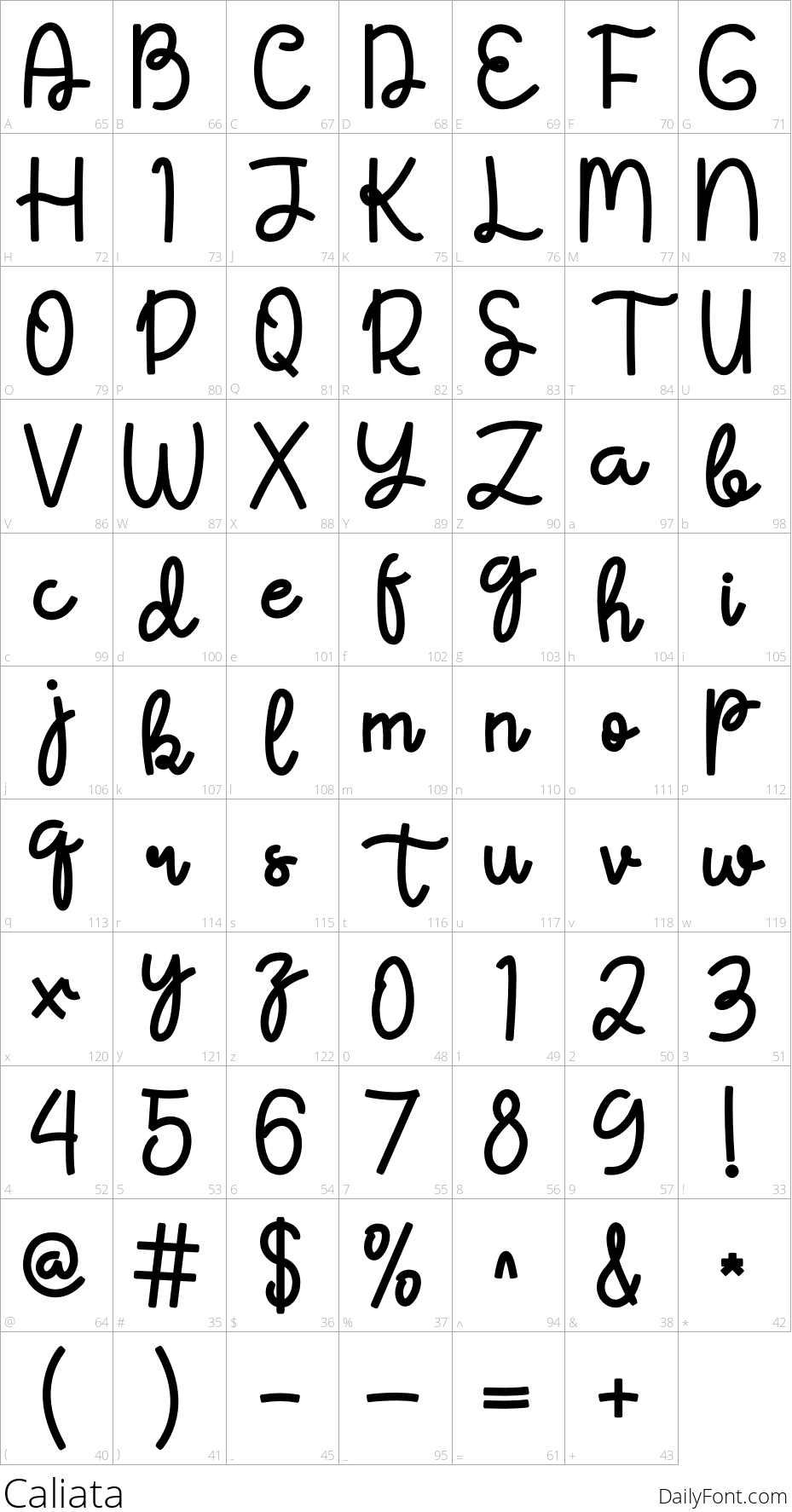
Caliata
Searching for a beautiful, elegant font with a handwritten feel? Look no further than Caliata-inspired fonts! This style is perfect for creating warm, inviting designs that exude sophistication and charm. With its unique blend of vintage flair and modern elegance, Caliata-like fonts are ideal for wedding stationery, thank you notes, quotes, greeting cards, logos, business cards, and any other project where a touch of whimsy is desired.
What sets these fonts apart is their ability to evoke a sense of personal, handmade craftsmanship. The subtle imperfections and flourishes add a human touch that makes your designs feel all the more special and unique. Whether you're creating a romantic invitation, a heartfelt thank you note, or a modern logo, Caliata-inspired fonts are sure to bring a smile to your audience's faces.
In addition to their aesthetic appeal, these fonts also offer advanced features like PUA encoding. This means that accessing all the glyphs and swashes is as easy as can be! With this level of control, you'll be able to customize your designs with precision and flair, taking your creative vision to new heights. So why settle for a generic font when you can have a Caliata-inspired font that truly speaks to your brand's personality?